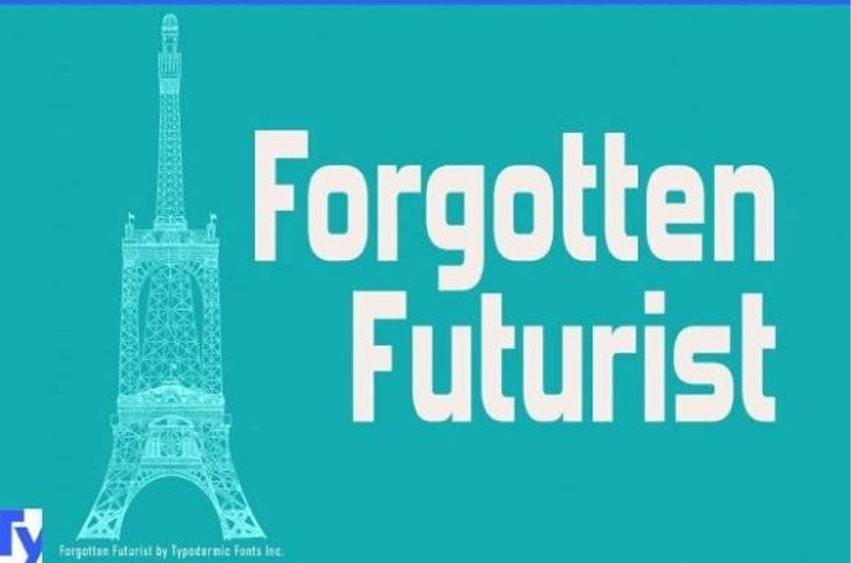
Forgotten Futurist Font
Forgotten Futurist Font is an industrial sans serif typeface, inspired by high-tech logotypes of the 1960s and 1970s.
It’s available in multiple styles that can fit anyone’s taste.